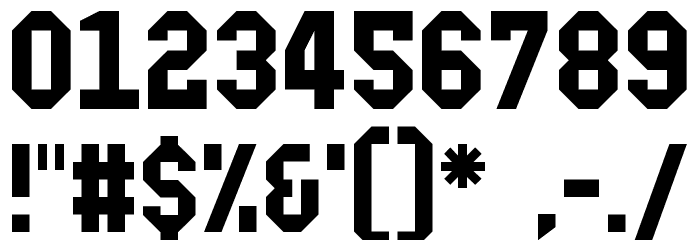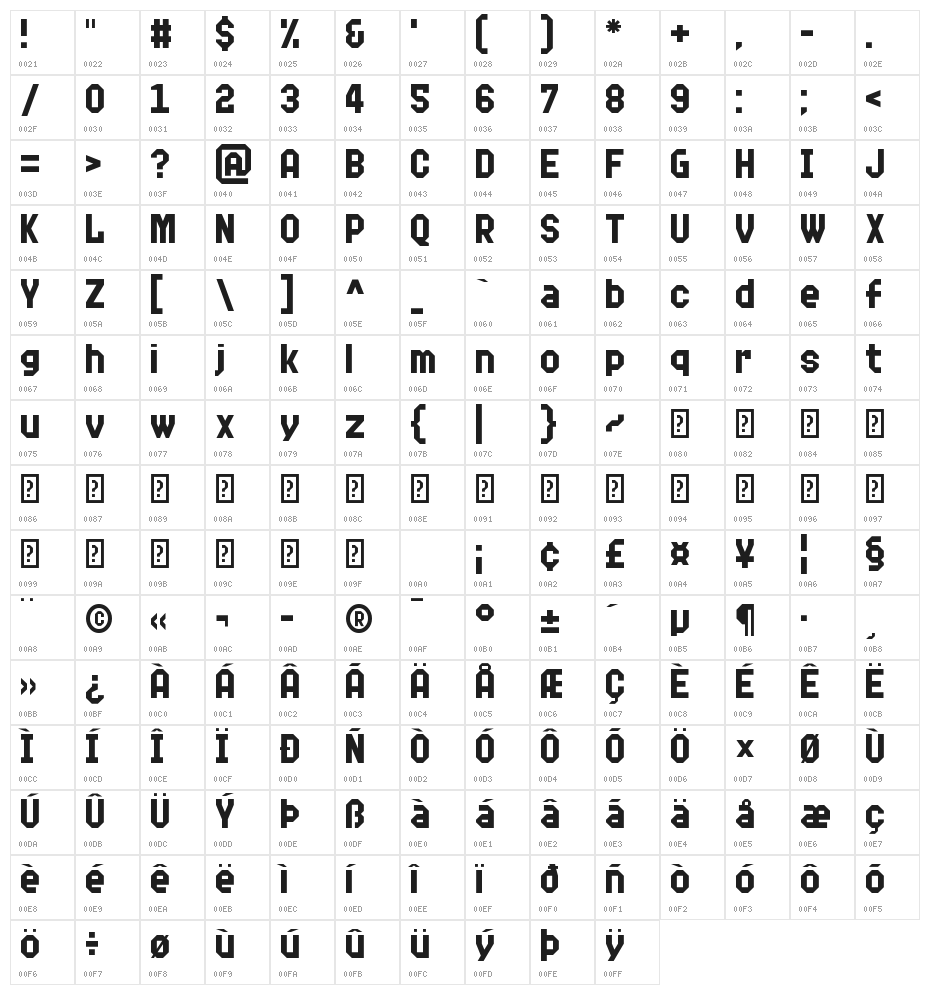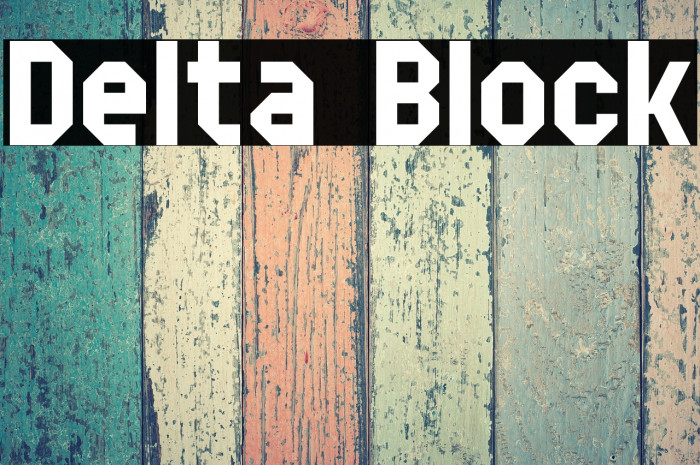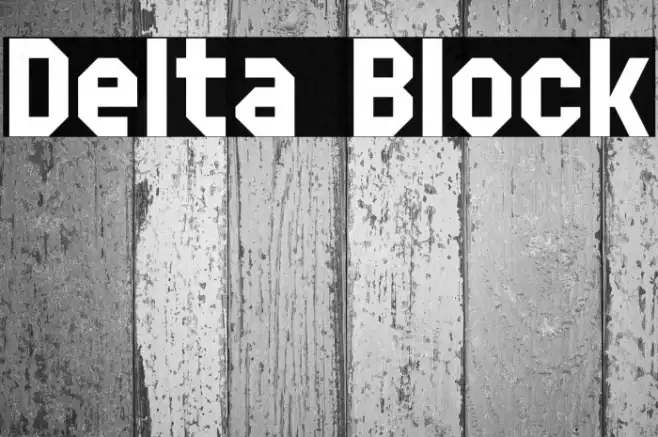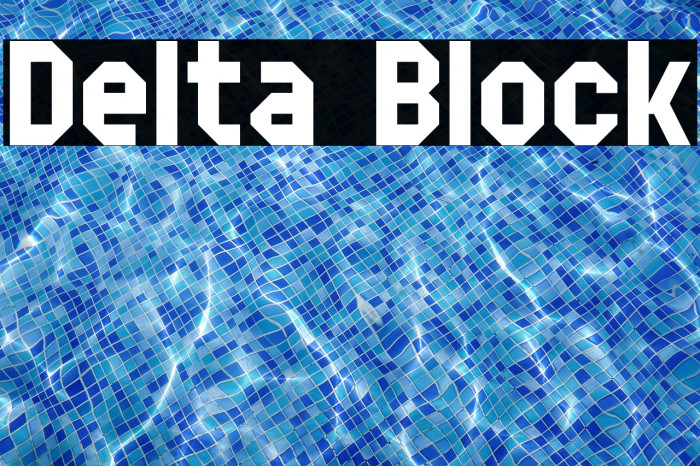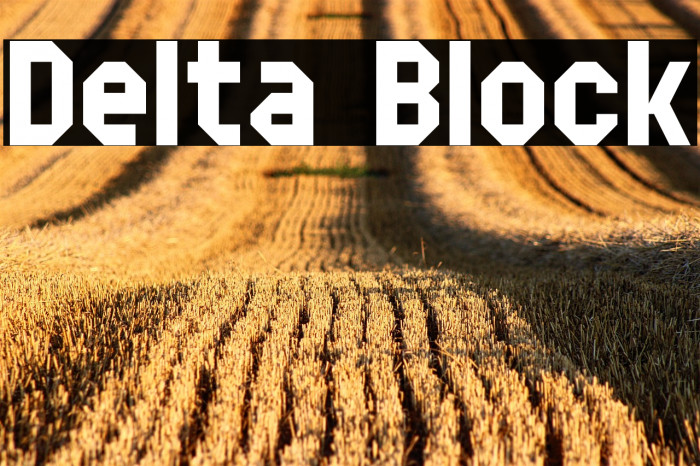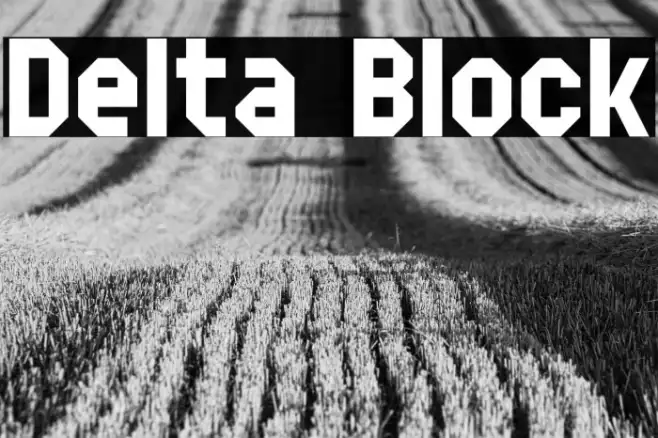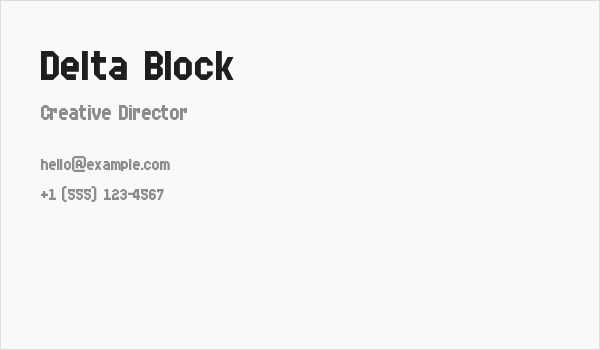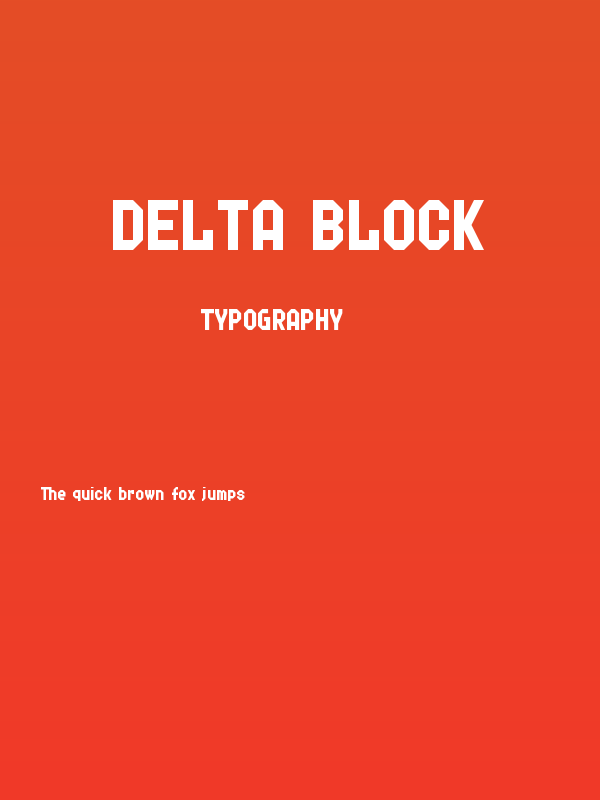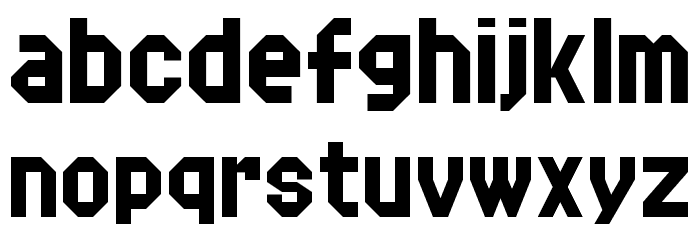
Delta Block Font
Delta Block Description
This font features a bold, geometric style with strong, angular lines and a blocky appearance. The characters are uniformly wide, giving it a monospaced feel, although it is not strictly monospaced. The uppercase and lowercase letters maintain a consistent height, contributing to a cohesive look. The numerals and special characters follow the same design principles, ensuring uniformity across all glyphs. The font's boldness and geometric shapes make it highly legible, even at smaller sizes, while its unique style adds a modern and edgy touch to any design. The sharp angles and straight lines give it a futuristic and industrial vibe, making it suitable for projects that require a strong visual impact.